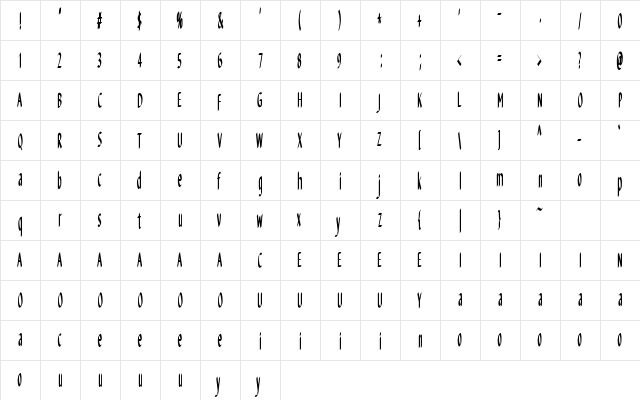
Halloween Pumpkin Regular
Design Context for Halloween Pumpkin Typeface
Halloween Pumpkin takes a measured approach to typography — its balanced proportions and neutral character make it a reliable workhorse for both digital and print work.